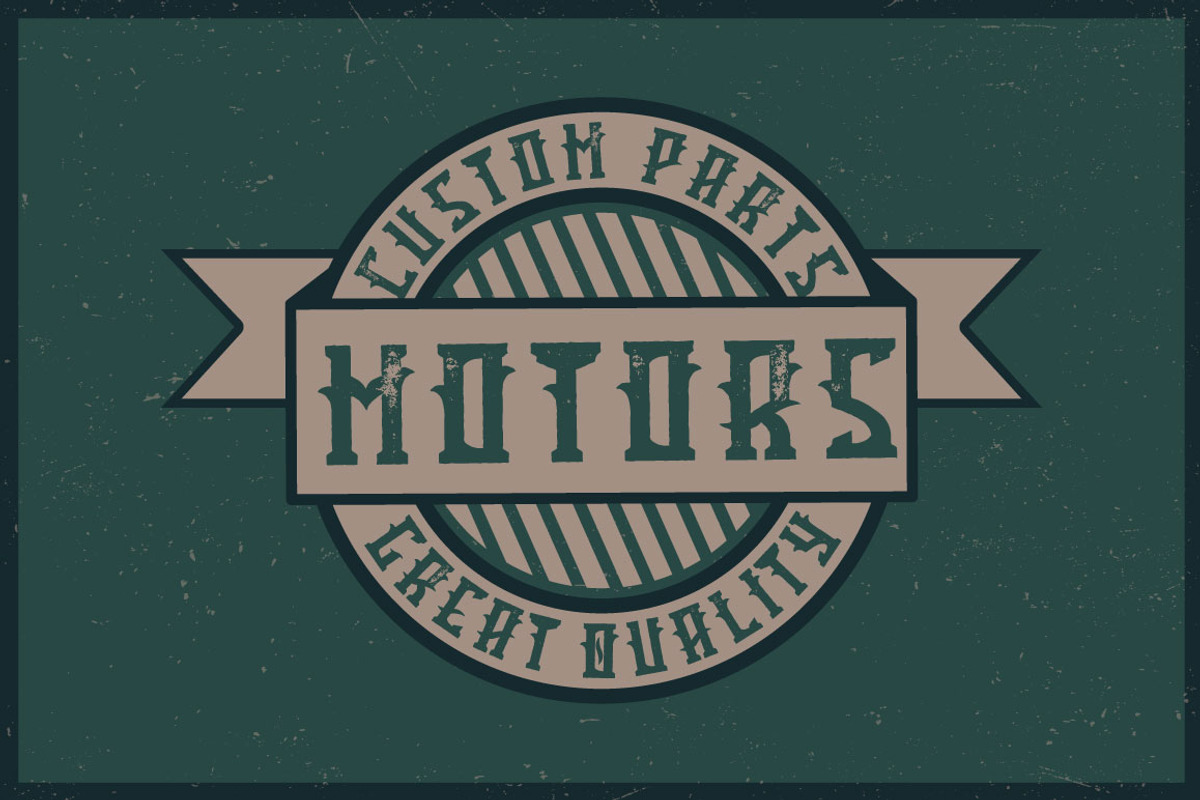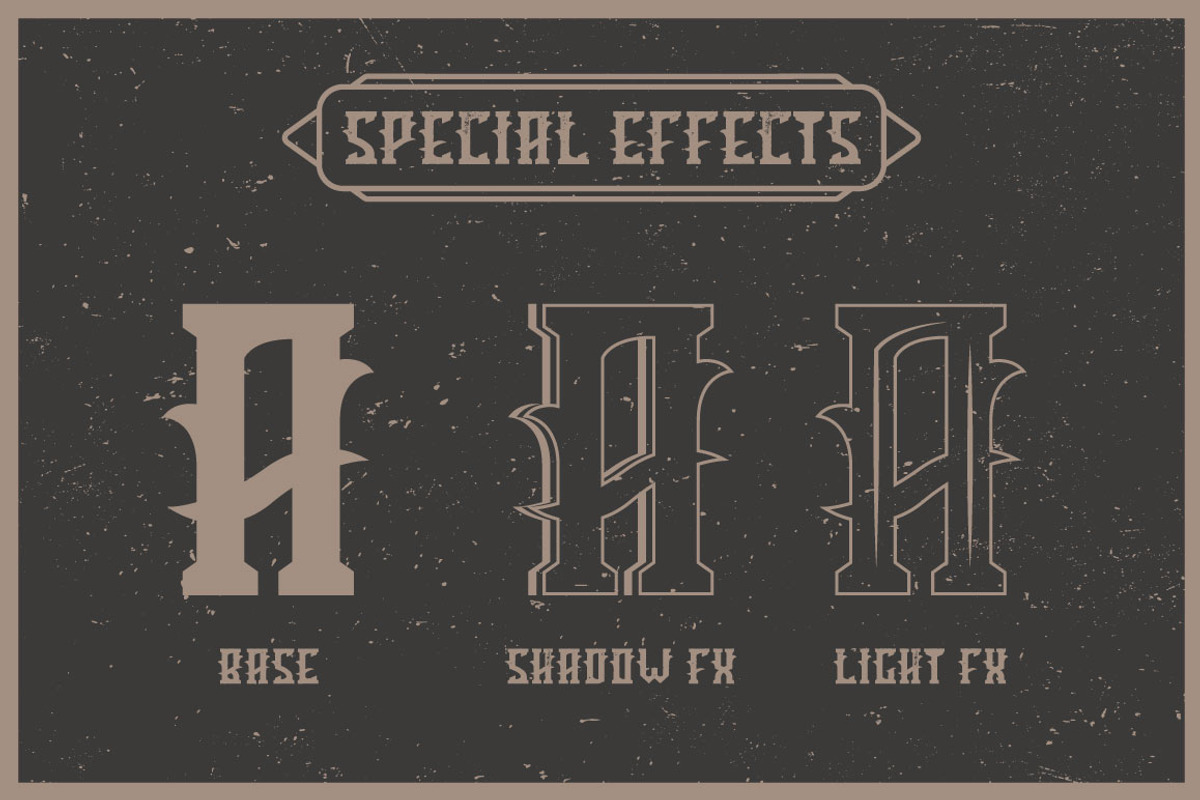
Tequila label font
Tequila label font by Heatherinsane is a font selected for branding, posters, packaging, typography.
- 5 fonts in complect with special effects
- You can mix shadow effect as shown at 5th screenshot
Why Tequila label font is worth a look
Tequila label font by Heatherinsane fits naturally into Branding, posters, packaging, typography.